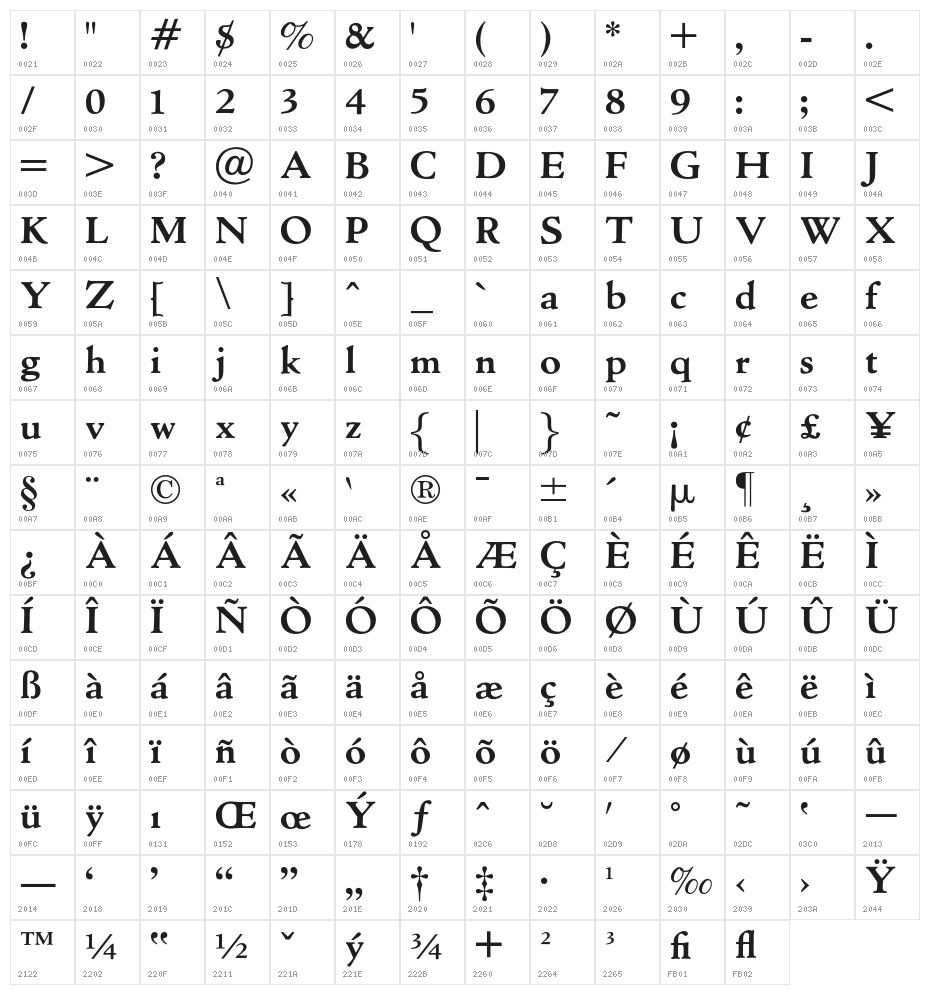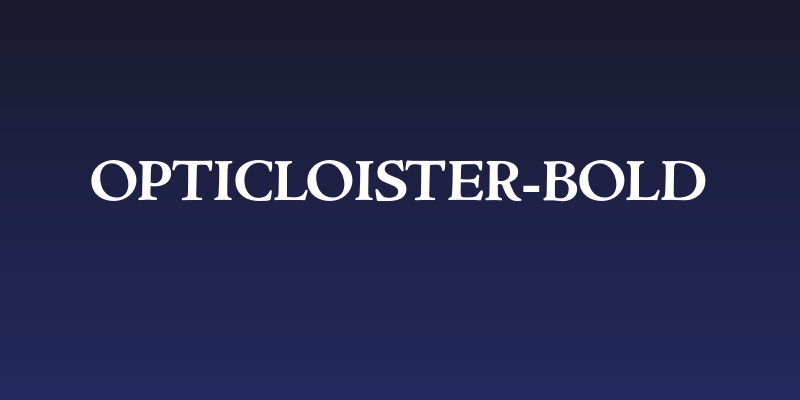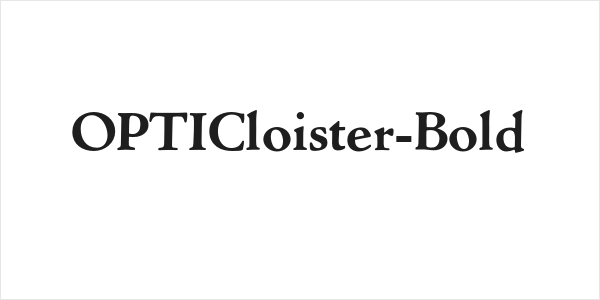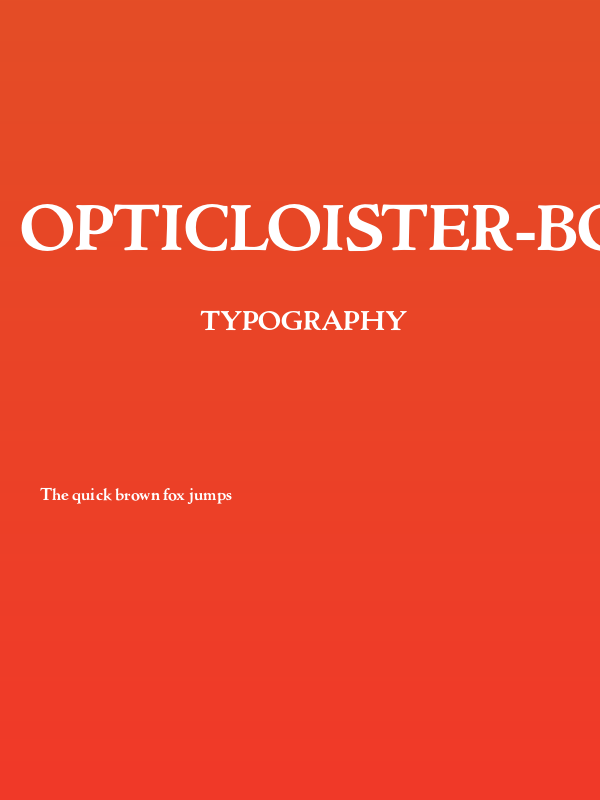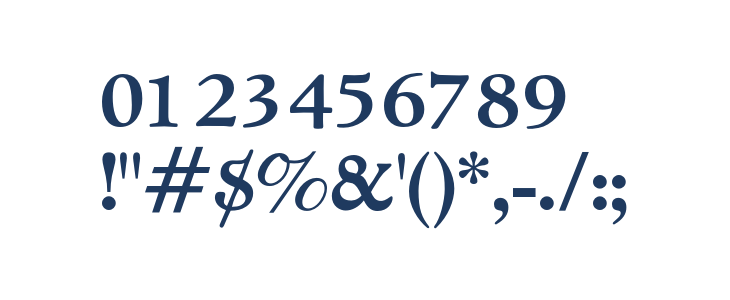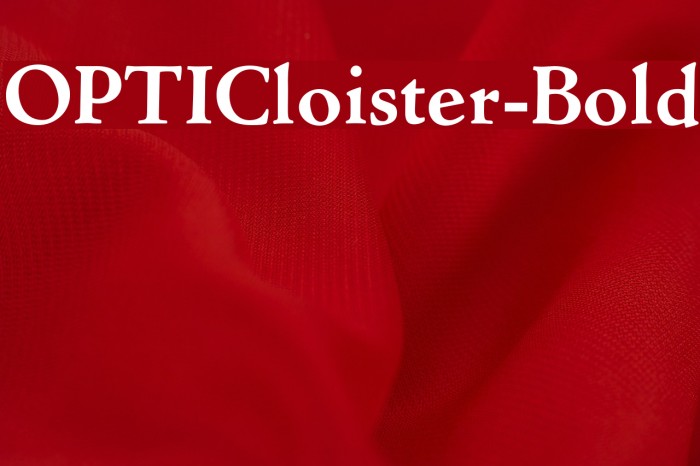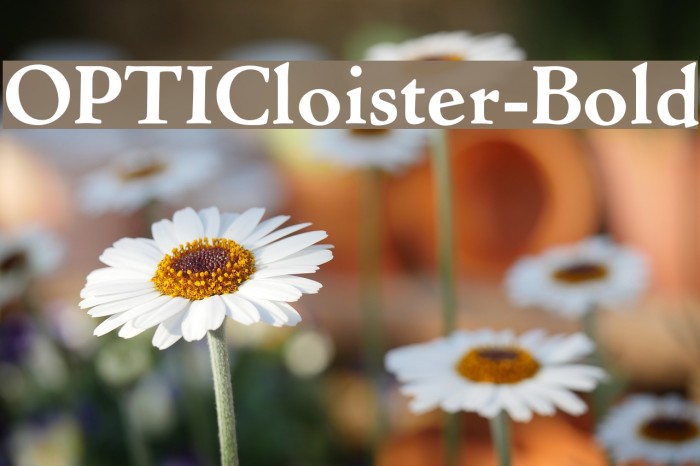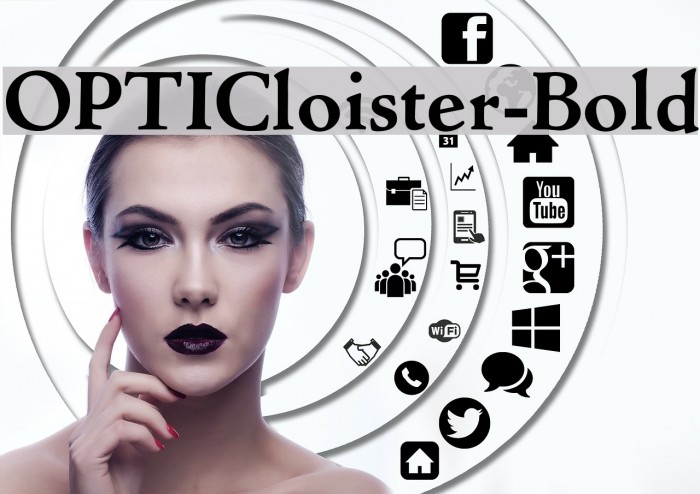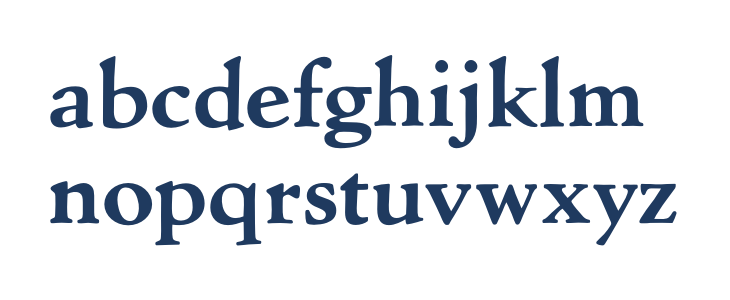
OPTICloister-Bold Font
OPTICloister-Bold Description
This font features a bold and classic serif design, characterized by its strong and pronounced serifs that give it a traditional and authoritative appearance. The uppercase letters are robust and well-defined, while the lowercase letters maintain a consistent weight and style, ensuring readability. The numerals are clear and distinct, complementing the overall aesthetic. Special characters are thoughtfully designed, maintaining the font's cohesive look. This font's boldness and classic style make it suitable for projects that require a touch of elegance and formality.
| Use Case | Headlines, Logos, Formal documents |
| Proposed Projects | Ideal for book covers, formal invitations, certificates, and branding materials that require a classic and authoritative look. |